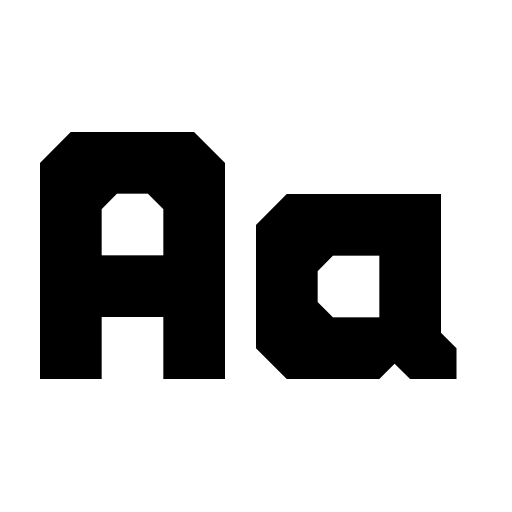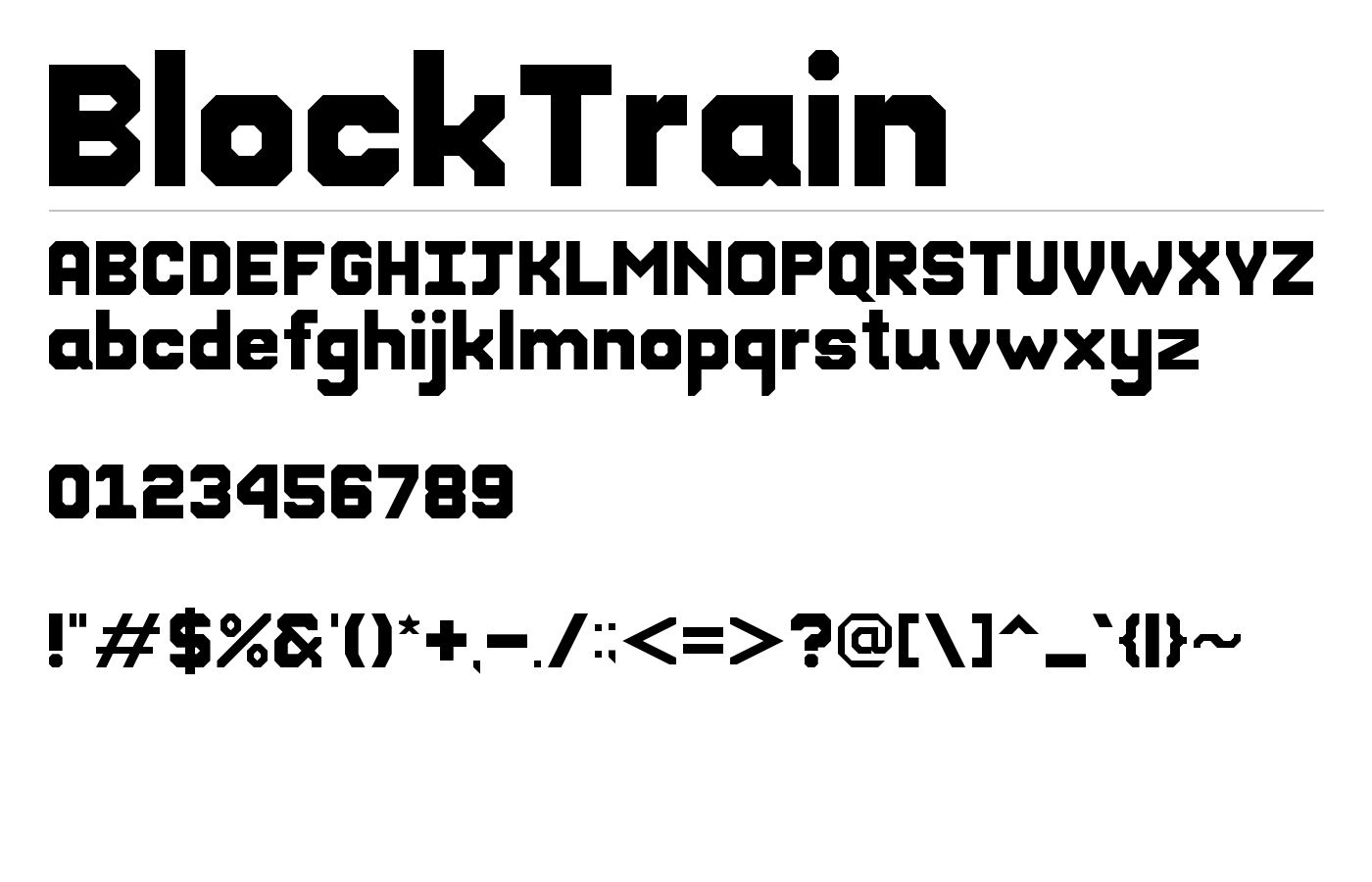
BlockTrain is a bold, geometric sans serif font with a strong, blocky character and sharp edges that lend it a sturdy, industrial feel. Its uniform stroke weight and octagonal shapes create a modern, tech-inspired personality, making it ideal for eye-catching headlines, posters, and branding that aims to convey strength and reliability. This font works best in display use where its unique, structured style can stand out and make a powerful impact.
BlockTrain Font
About BlockTrain Font
| Font family | BlockTrain Font |
| Designer | Jotrain |